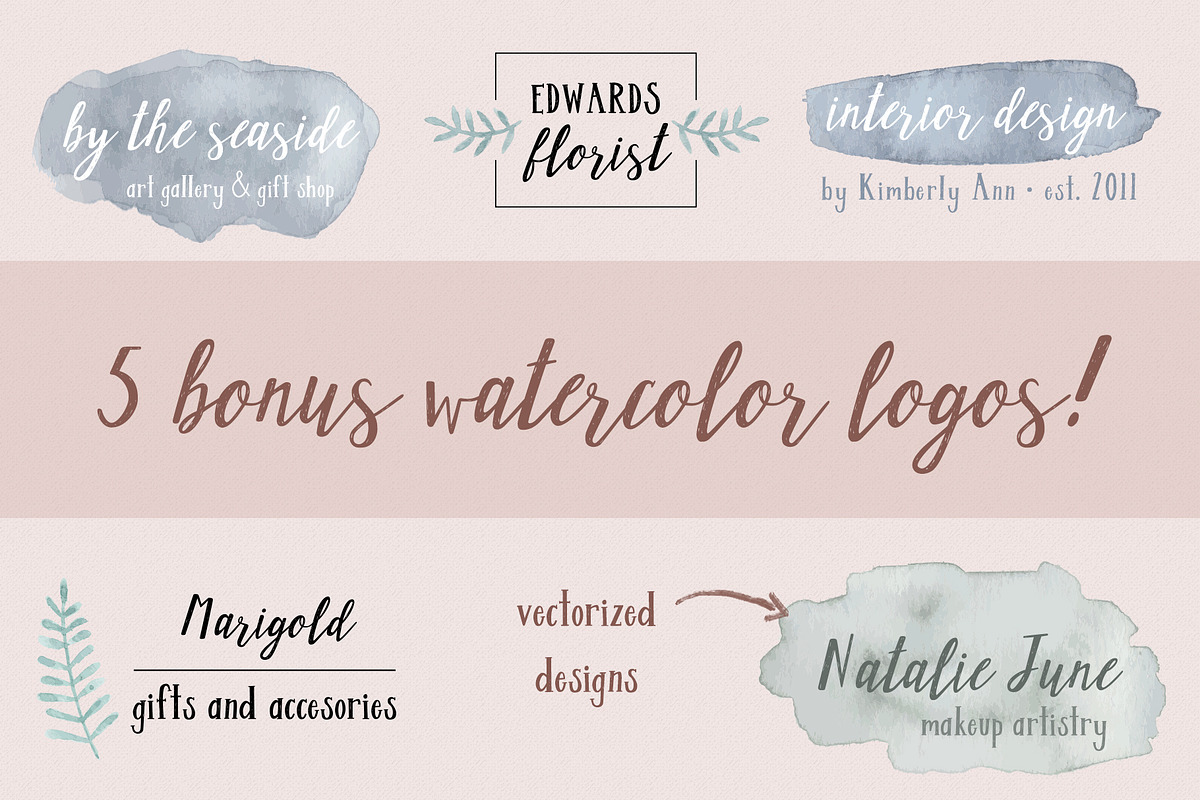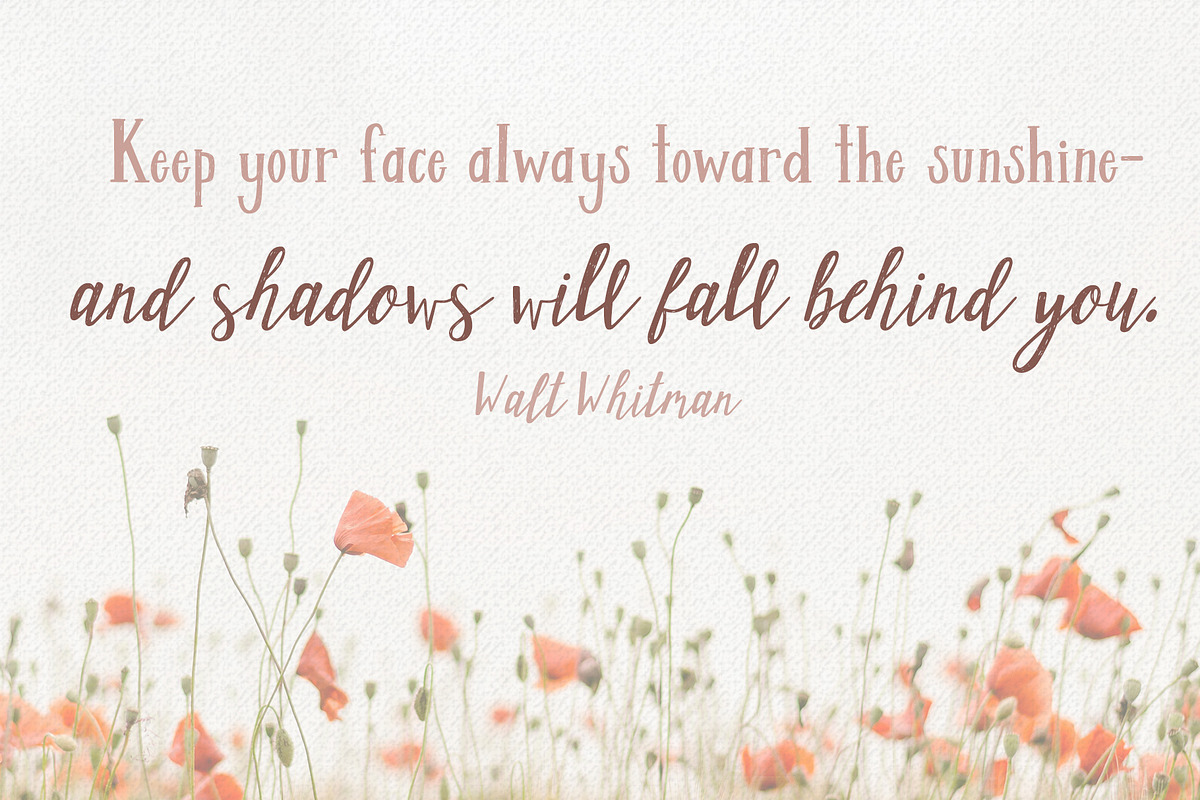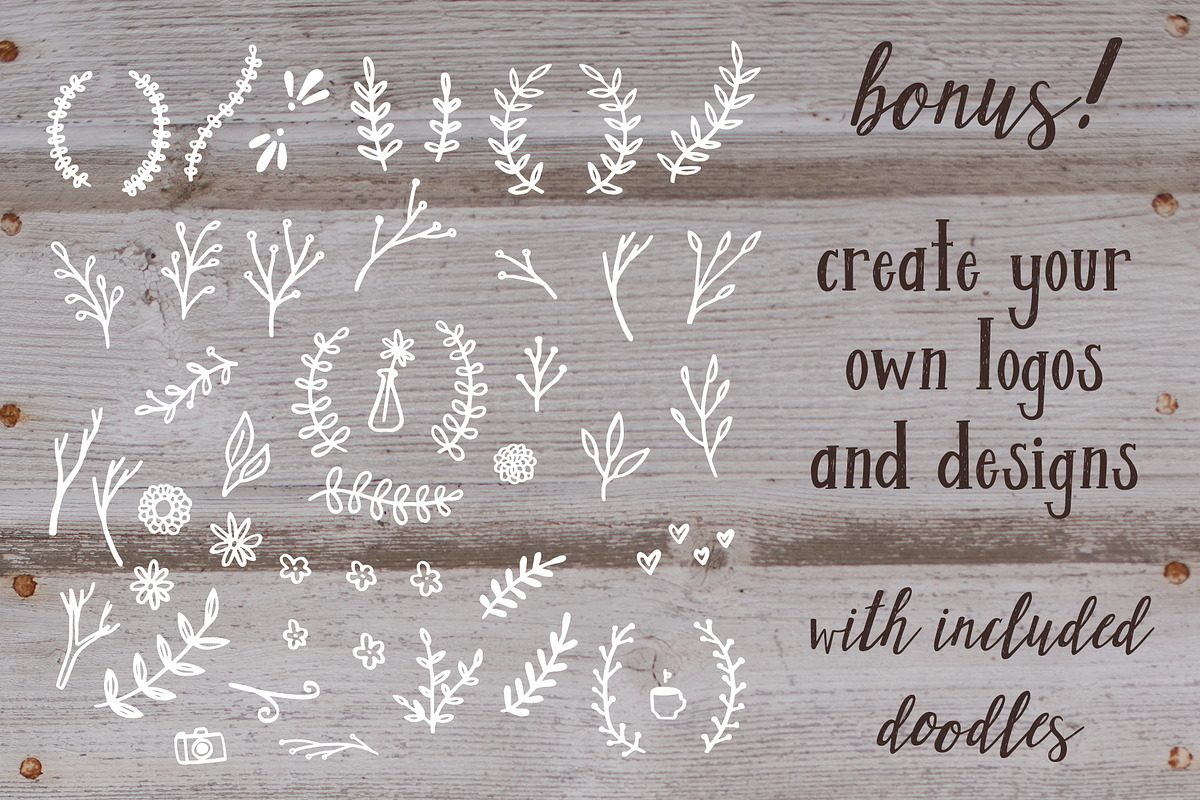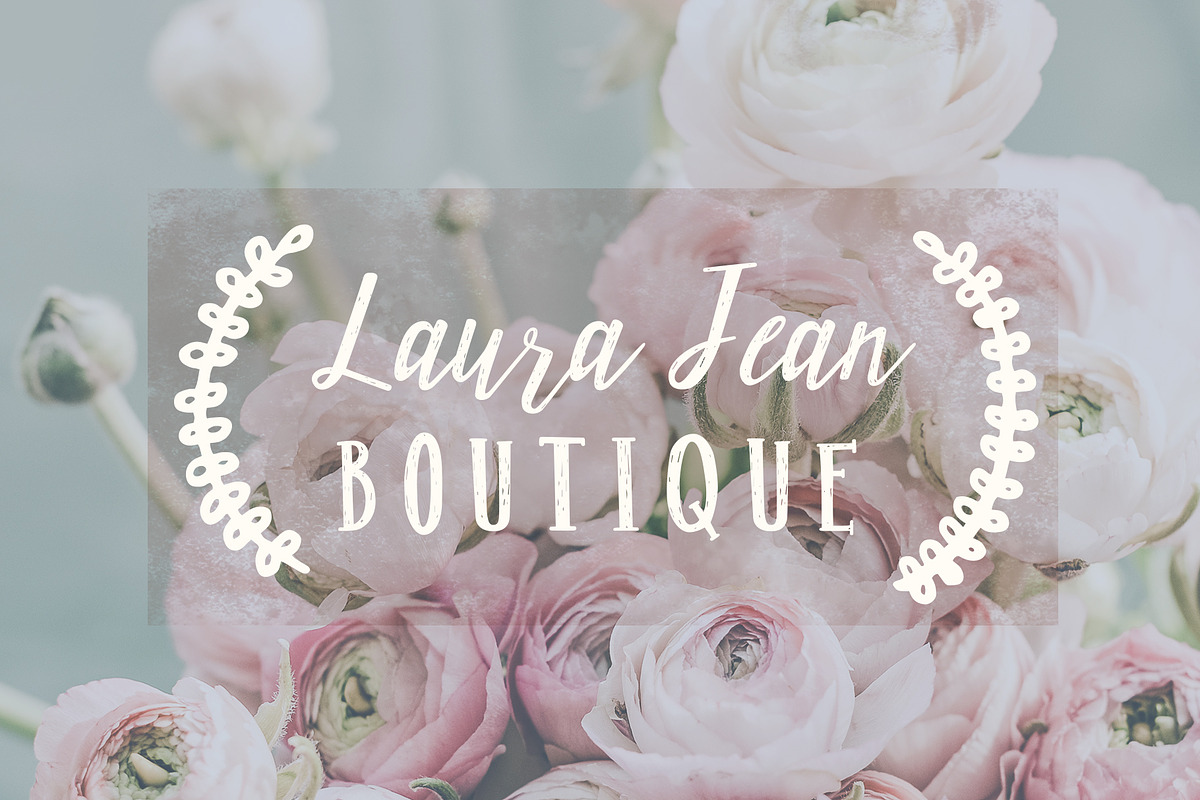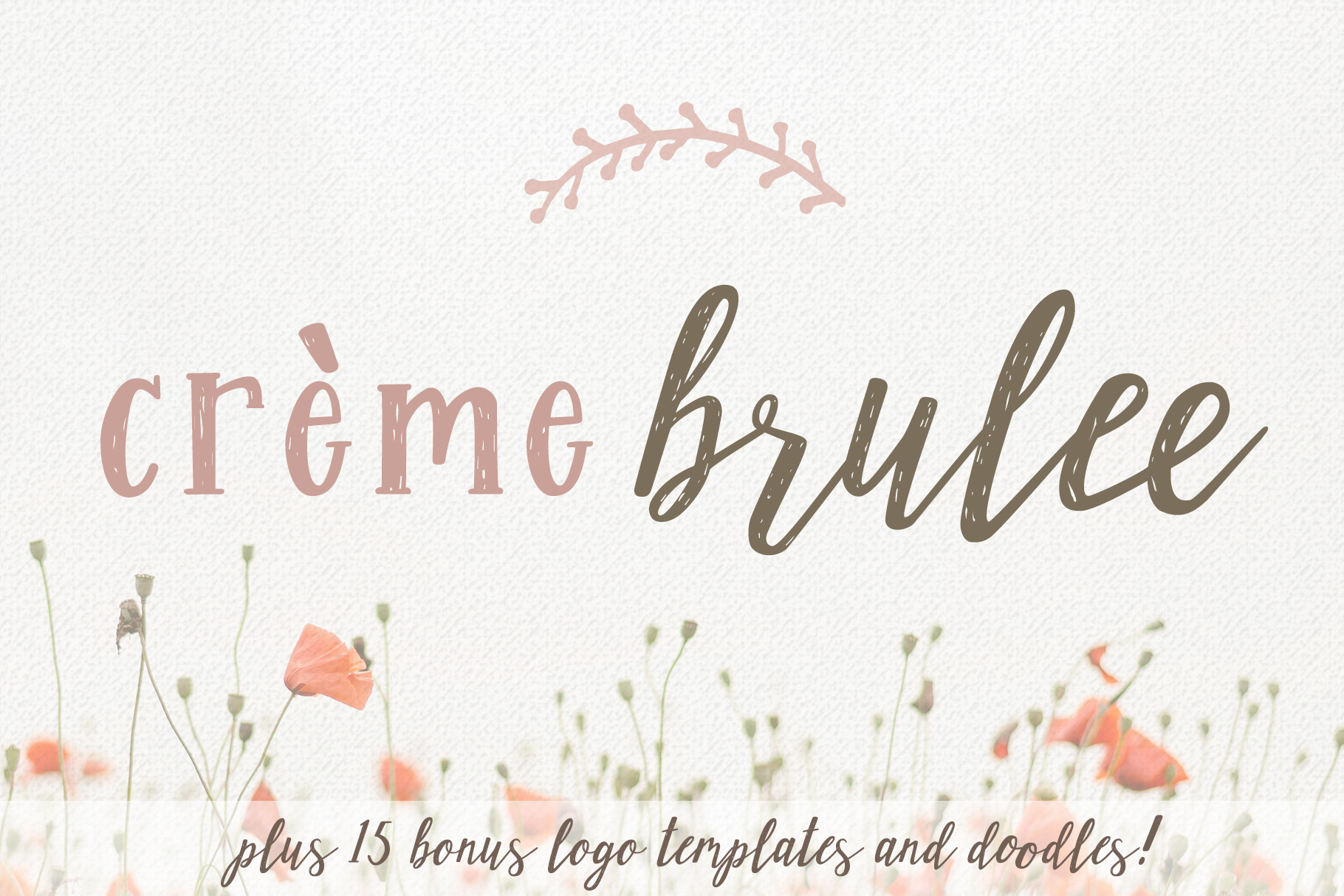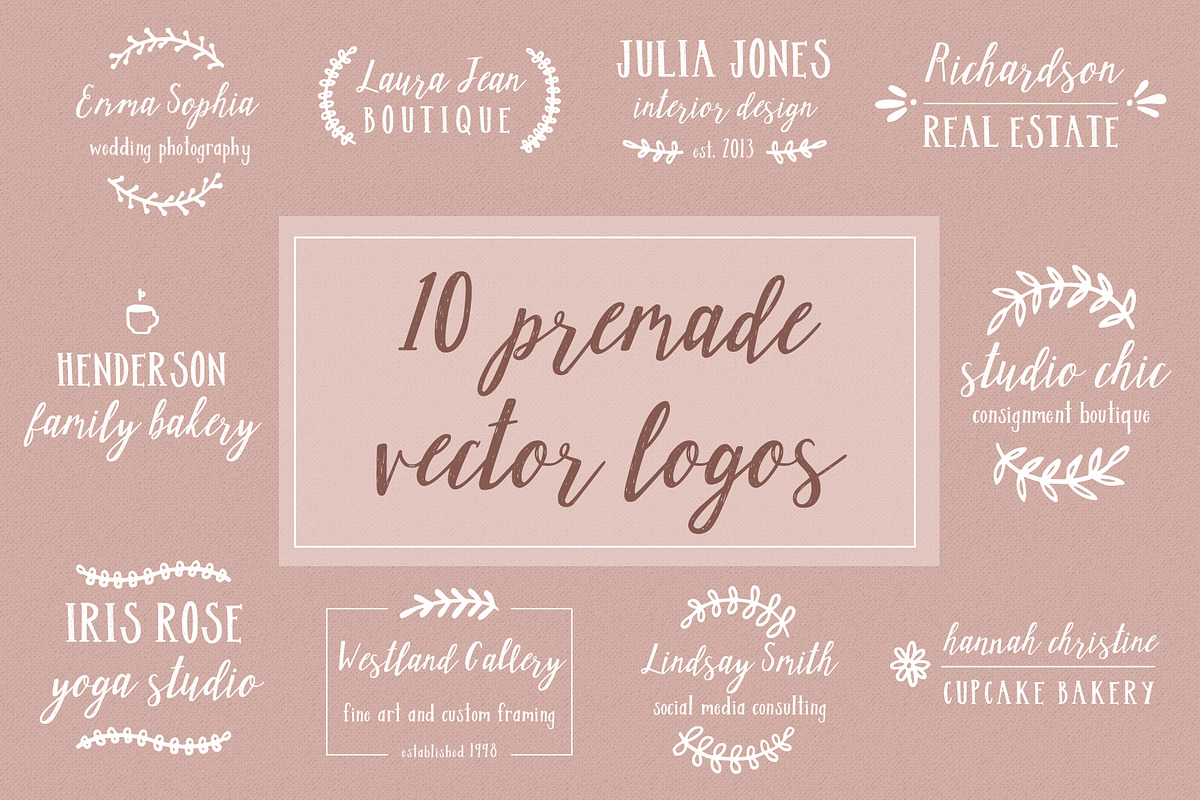
Creme Brulee Font Duo and Logo Kit
Creme Brulee is a lovely hand written script and serif font duo perfect for branding, blogging, wedding stationary, packaging, social media images, Pinterest, quotes, wall art, and more!
Creme Brulee script includes ligatures for a totally hand written look in your projects. It also contains multilingual characters for Western European language support.
This product also includes 15 bonus logo templates in AI format. 5 of these templates include vectorized watercolor elements. Please note the logo templates are editable only in Adobe Illustrator.